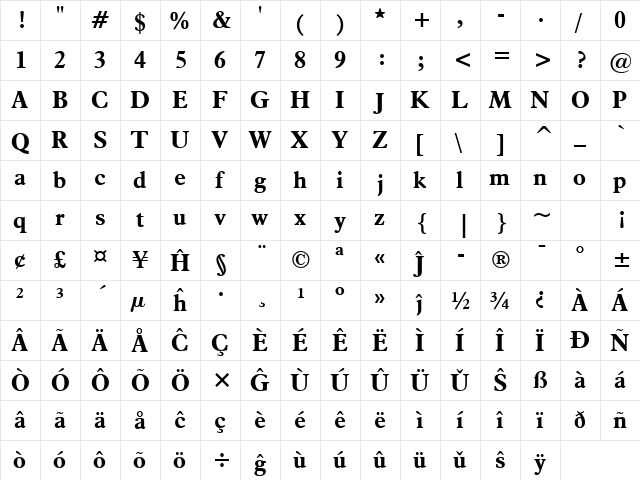
Aldine721 BT Eo Bold Font Preview
Aldine721 BT Eo Bold
Design Context for Aldine721 BT Eo Typeface
Aldine721 BT Eo takes a measured approach to typography — its balanced proportions and neutral character make it a reliable workhorse for both digital and print work. Its bold stroke weight gives it real presence on the page.